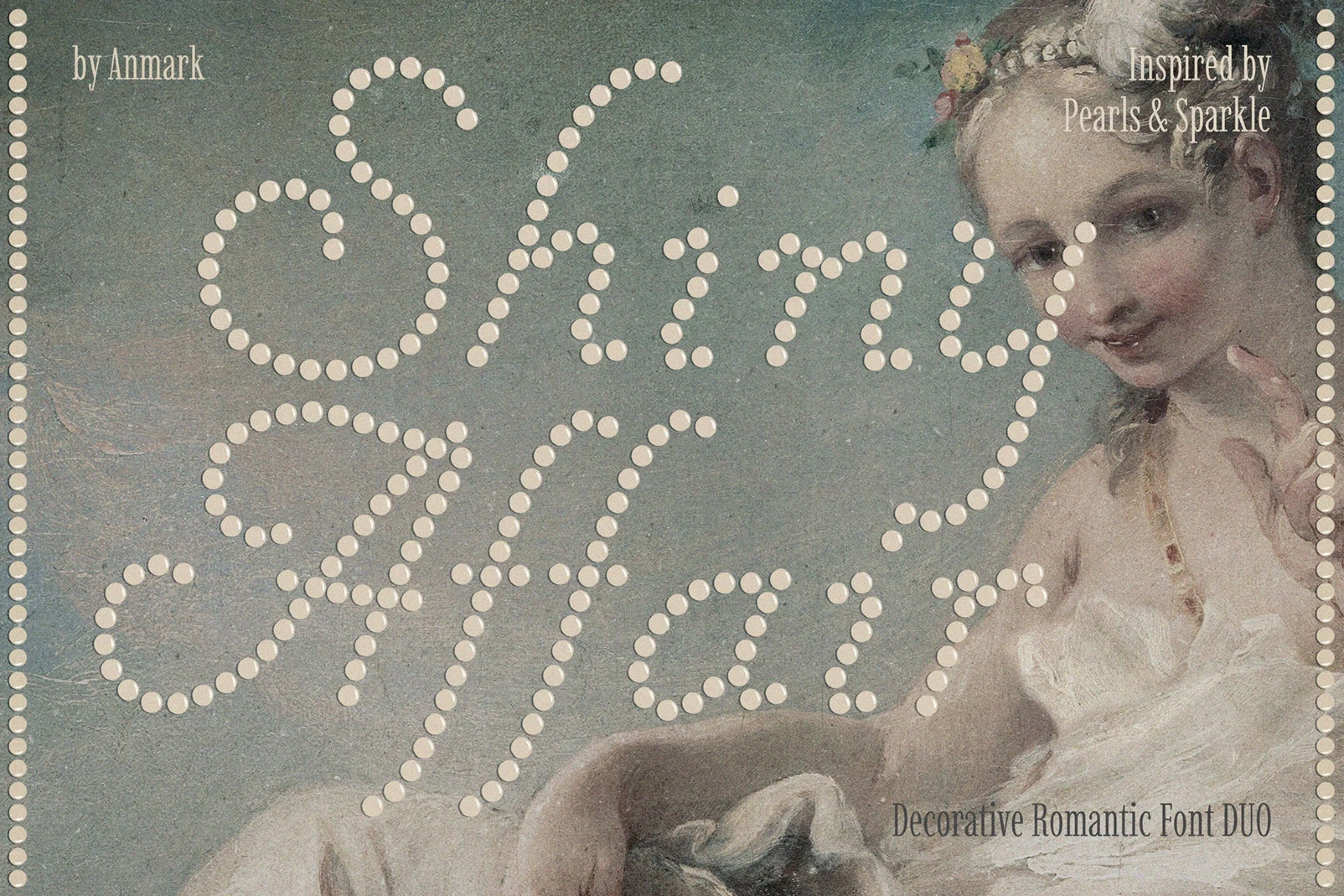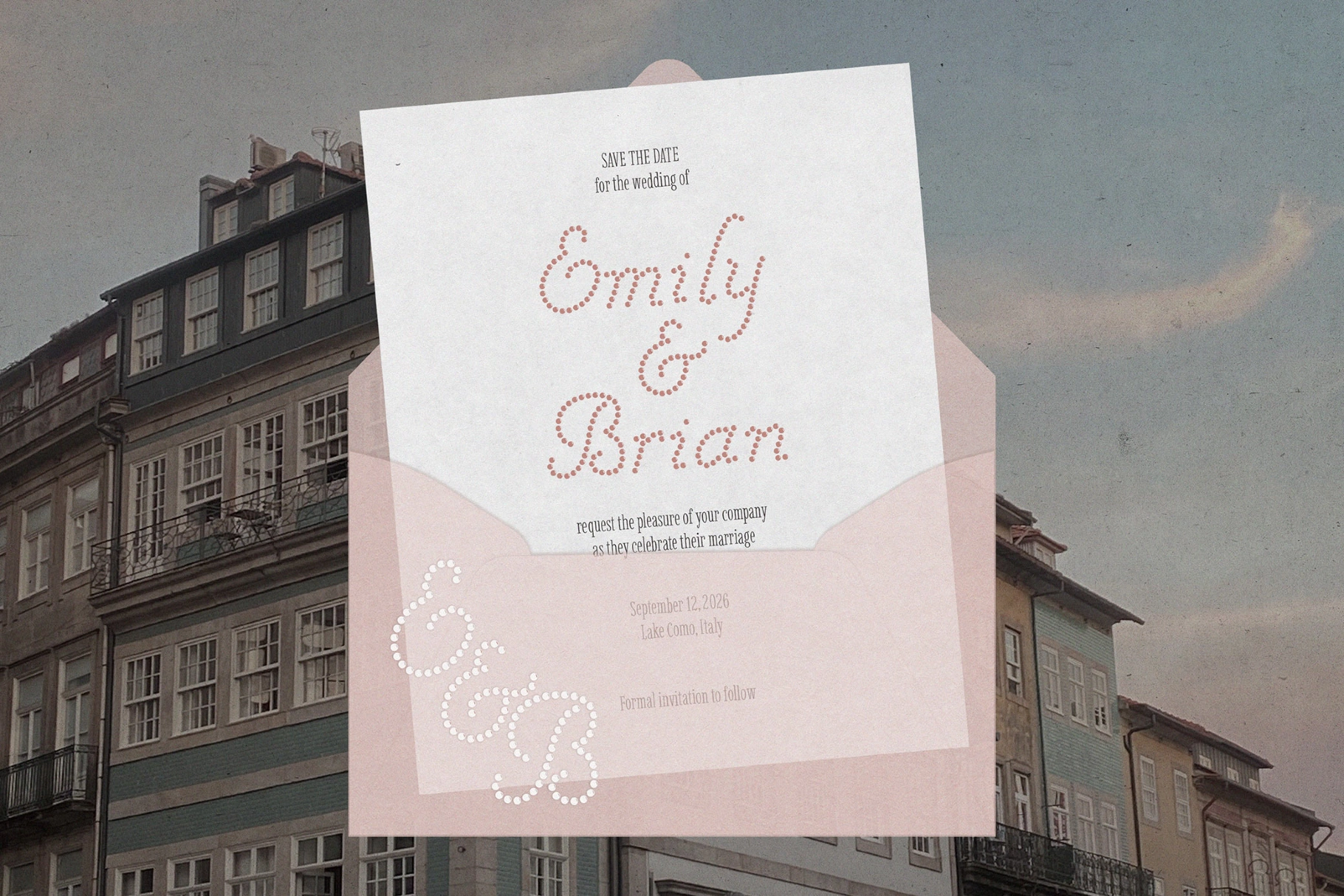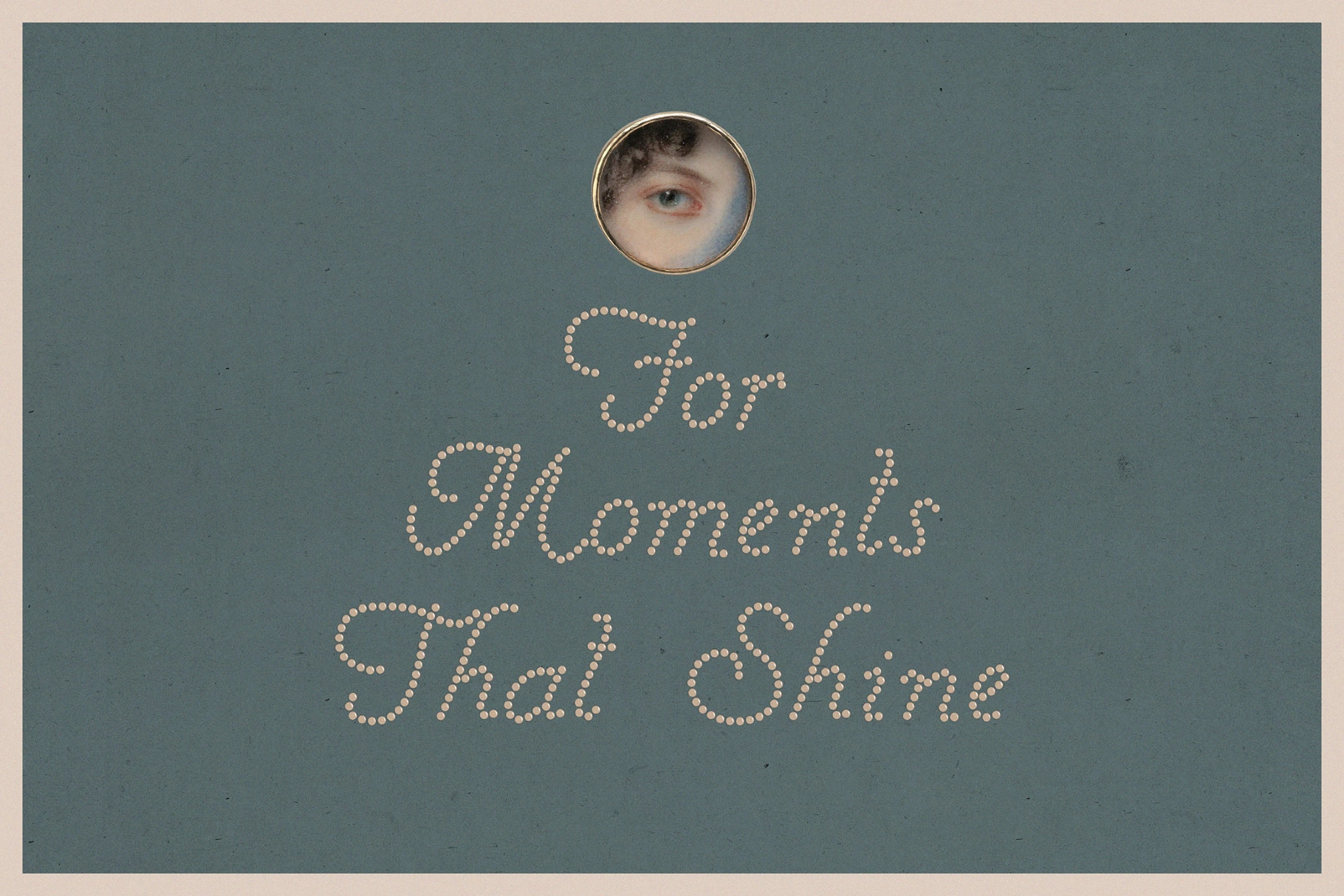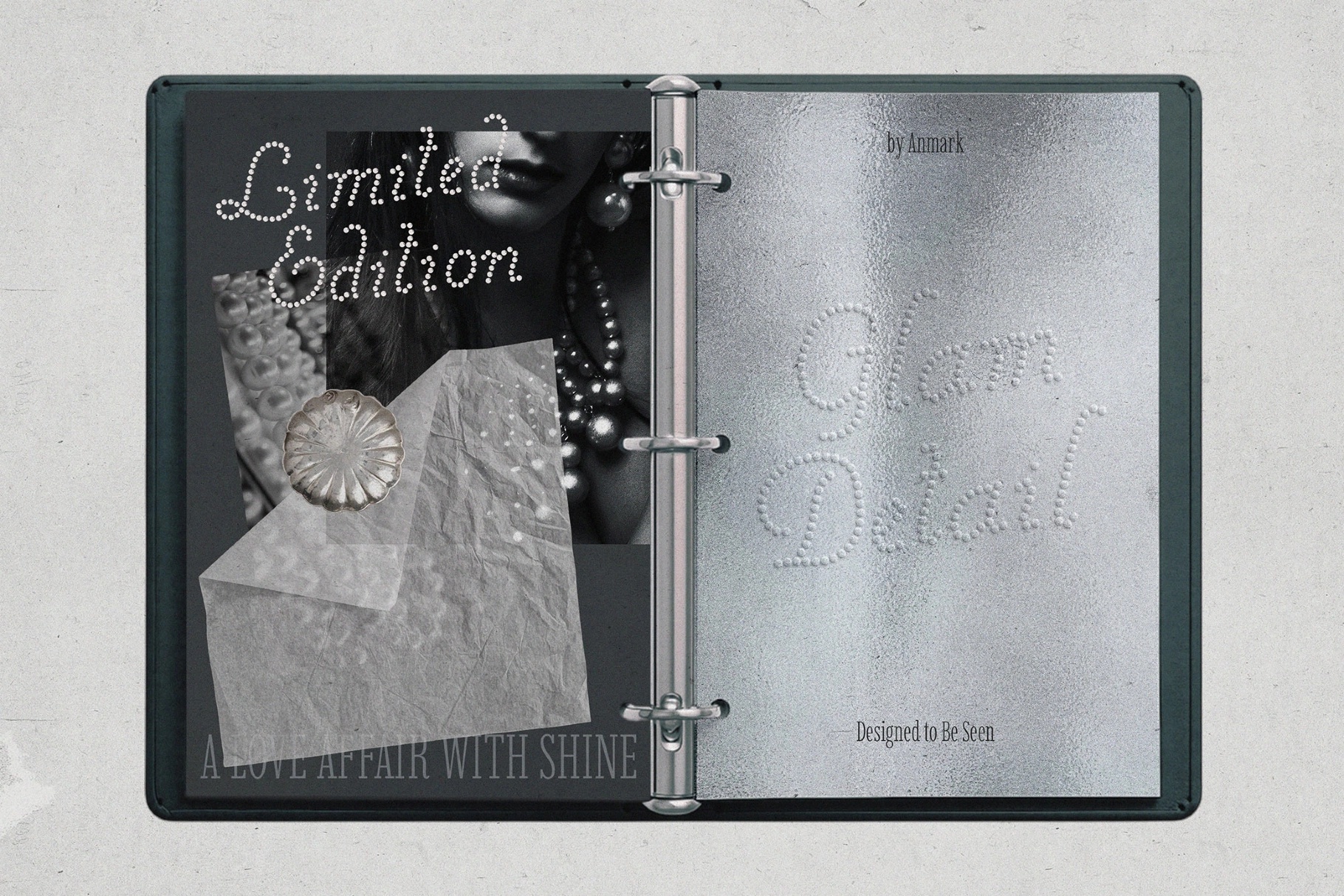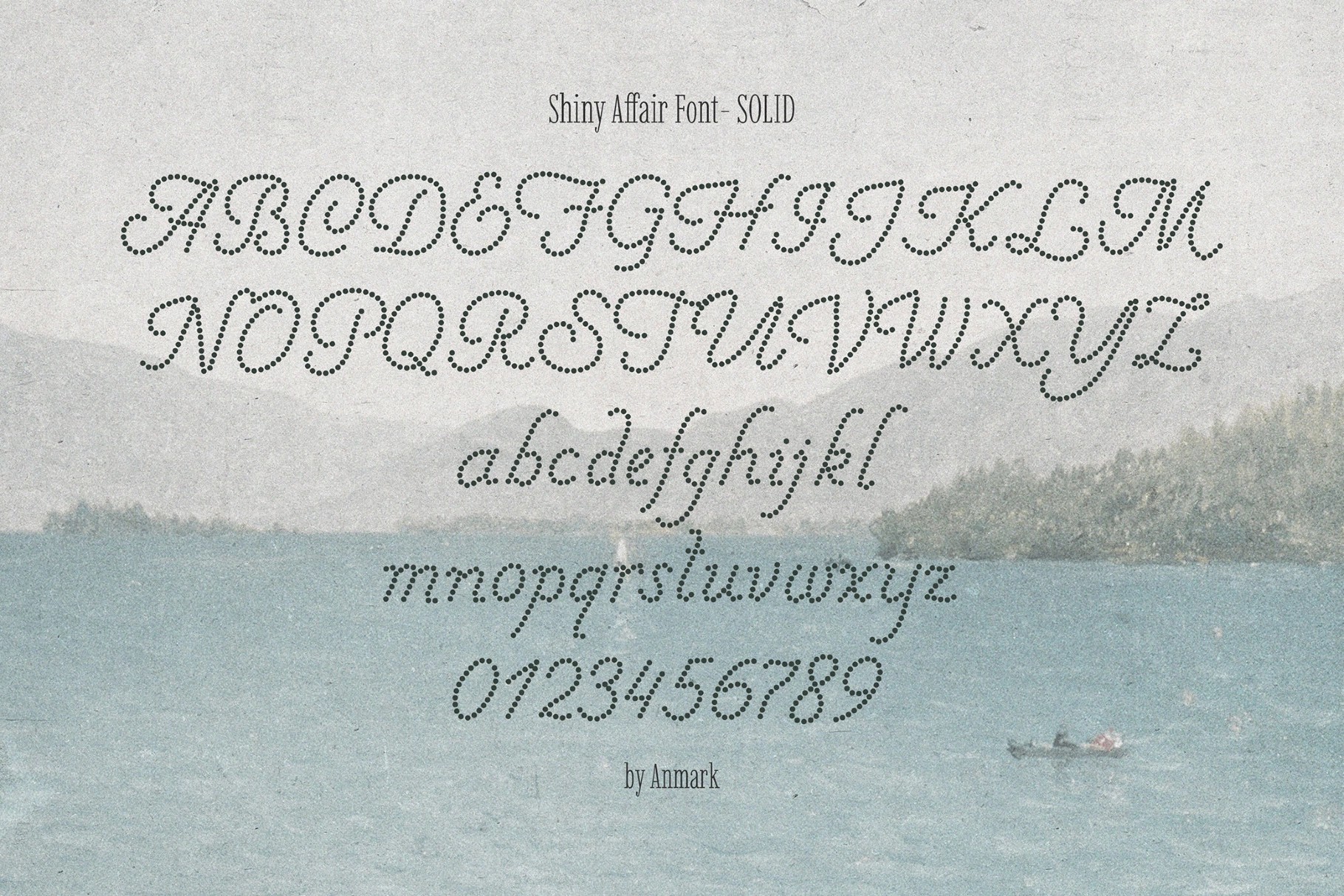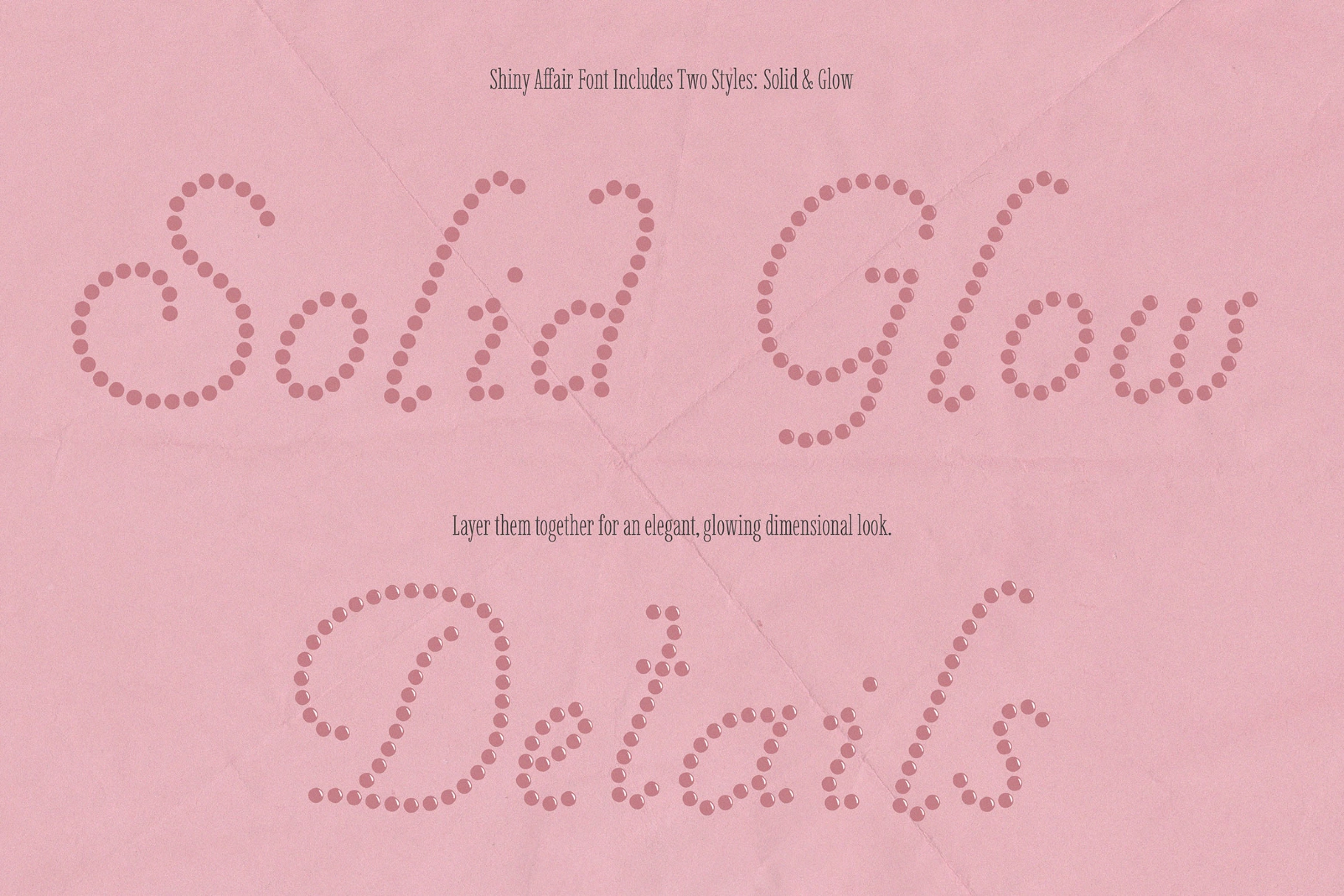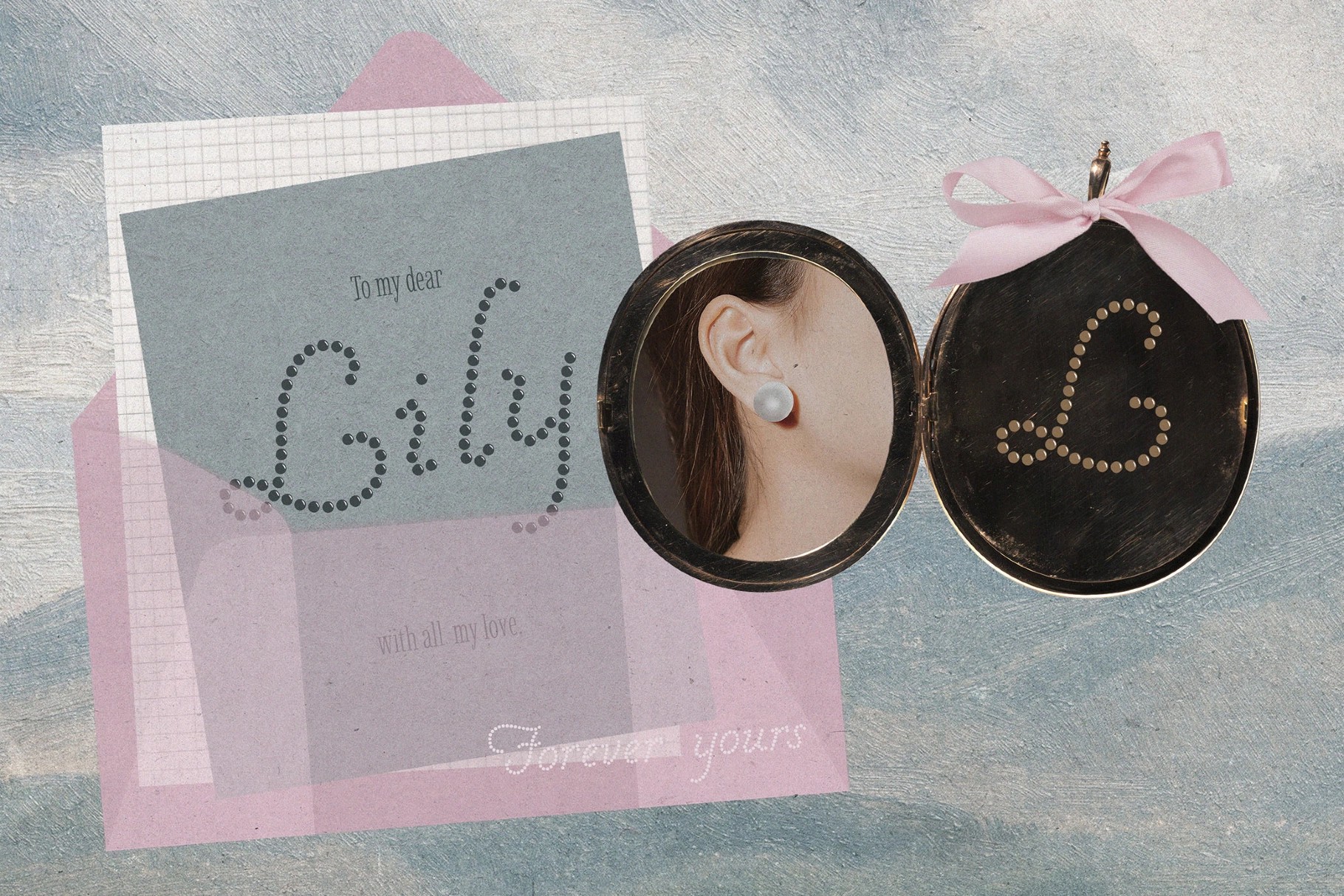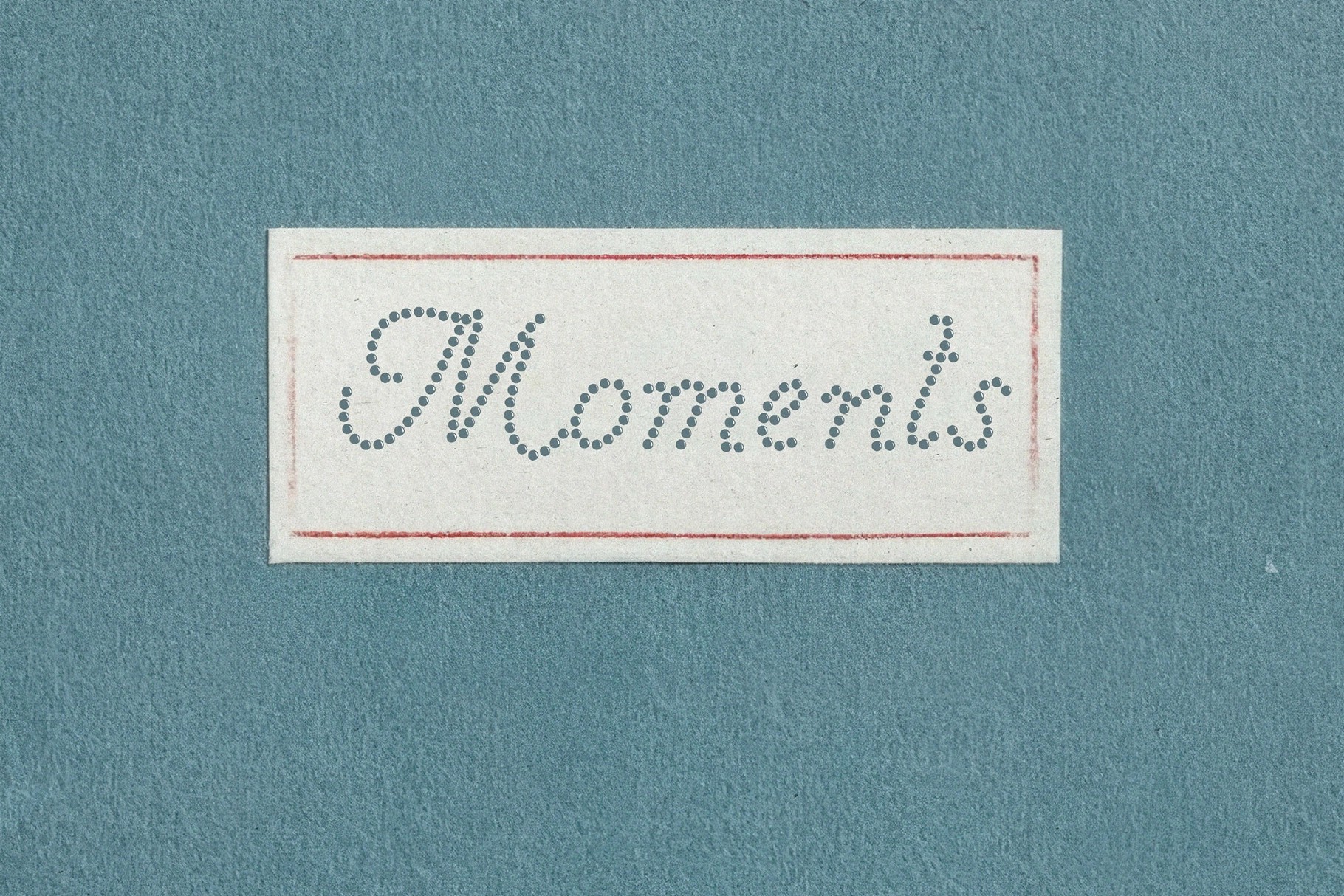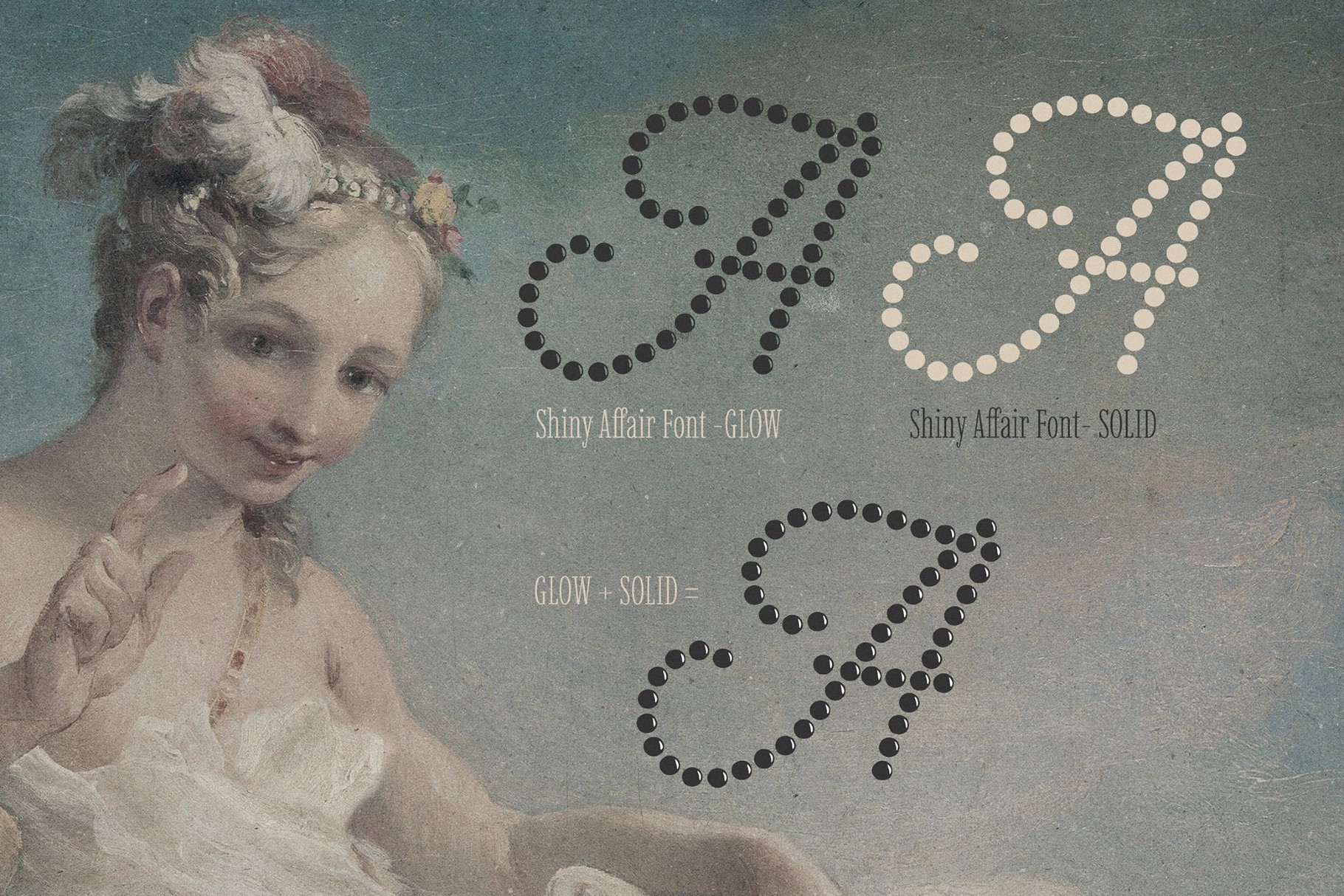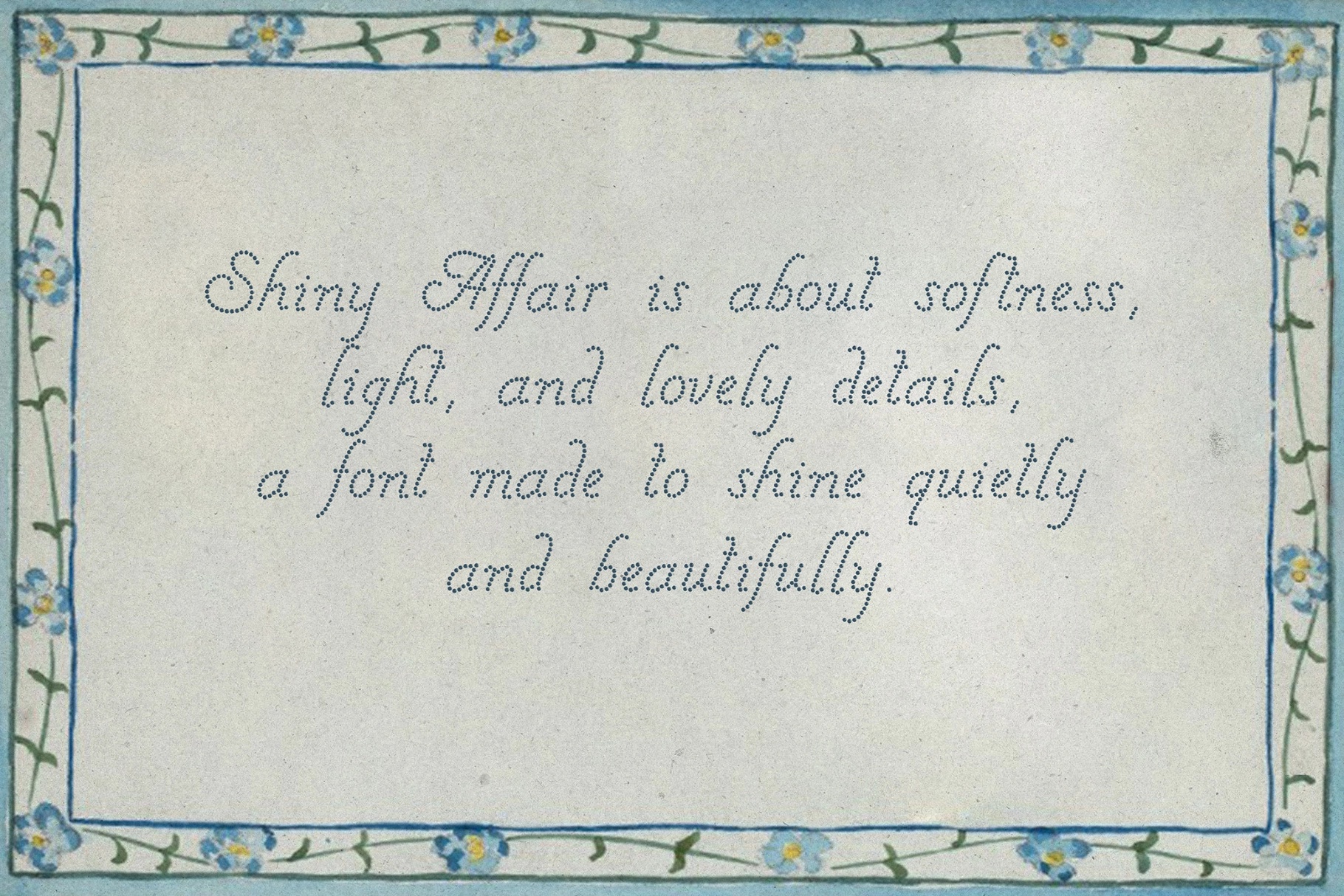
Shiny Affair — Romantic Dots Font
Shiny Affair is a romantic script duo with its sparkle coming from pearl strands, bead embroidery, and the dotted trims you see on keepsake stationery. Letterforms are graceful and slightly theatrical, while the dotted texture turns every stroke into a line of tiny gems — closer to jewelry-work than ink. The mood reads soft and celebratory, with enough ornament.
The duo carries a clear split character. The solid style draws the forms with crisp dotted weight for monograms and headlines, while the glow style adds a halo-like twin that can sit on its own or stack behind the solid for a gentle, dimensional look.
- Wedding stationery — invitation names, RSVP headers, envelope addressees.
- Monograms and crests — initials for seals, stickers, embossing, wax stamps.
- Bridal packaging — box lids, ribbon tags, tissue paper marks.
- Beauty and fragrance — perfume labels, candle jars, limited-edition sleeves.
- Jewelry branding — card backers, pouch stamps, care notes, boutique signage.
- Event collateral — menu titles, place cards, table numbers, programs.
- Photography styling — watermark signatures, album covers, print captions.
- Social posts — announcement tiles, story frames, highlight covers, save-the-dates.
- Gift goods — greeting cards, wrap stickers, favor tags, thank-you notes.
- 2 styles: Solid and Glow.
- The two styles can be layered for a subtle, luminous outline effect.
- Uppercase and lowercase, numerals, punctuation.